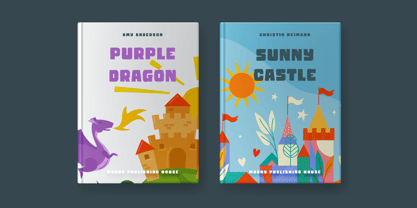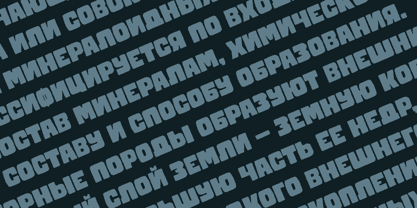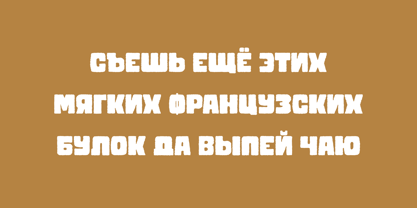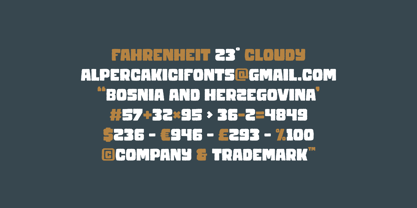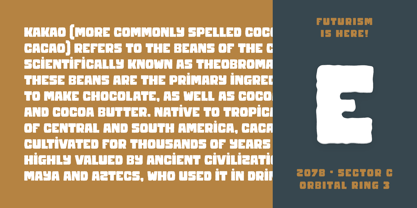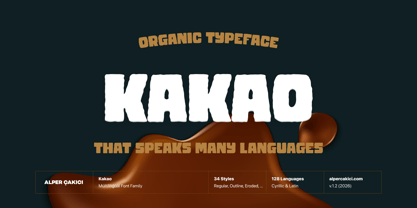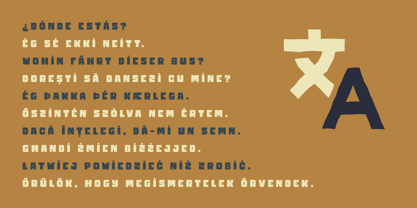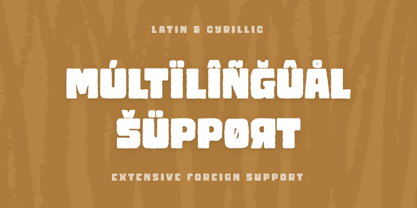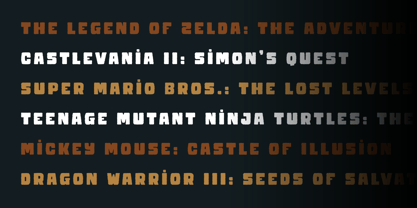
Kakao
by AlperCakici
The Kakao Font Family was designed by Alper Çakıcı and published by AlperCakici. Kakao contains 34 styles and family package options. More about this family
Kakao is a bold display typeface that embodies the raw charm of handcrafted lettering, featuring a fluid, organic edge. Its expressive forms strike a balance between playful and powerful, making it perfect for designs that demand personality and impact. With a wide array of stylistic variations, Kakao offers exceptional versatility for various creative projects. From rough, gritty textures to cleaner contours and outline styles, each version conveys a unique tone while preserving a cohesive visual identity. The italic variants introduce motion and dynamism, ideal for energetic layouts and eye-catching compositions. Kakao supports a broad range of Latin-based languages, making it an excellent choice for global branding, editorial design, packaging, posters, and digital content. Whether you seek a handcrafted aesthetic, a bold artistic statement, or a textured experimental look, Kakao equips you with the tools to elevate your typography. This typeface is perfect for headlines, logos, album covers, social media graphics, and expressive branding, ensuring it stands out wherever strong visual character is essential.
Designers: Alper Çakıcı
Foundry: AlperCakici